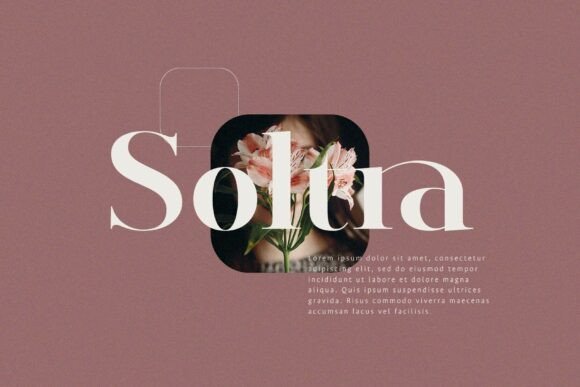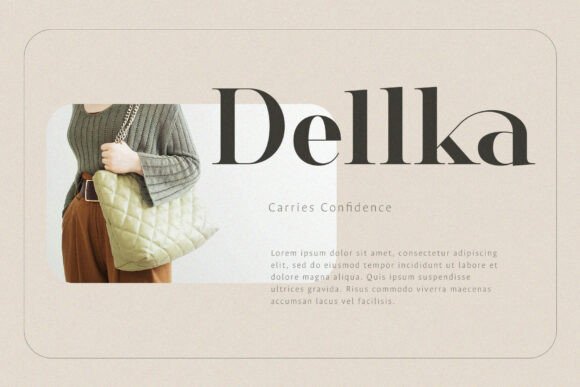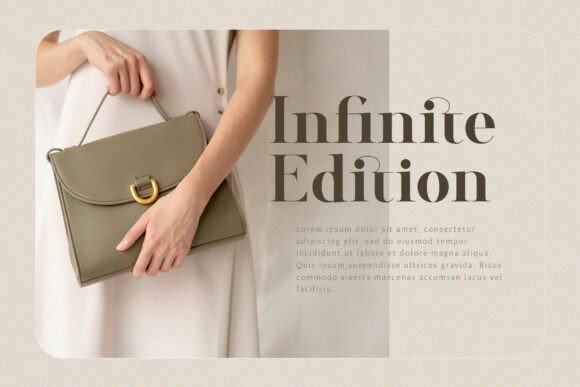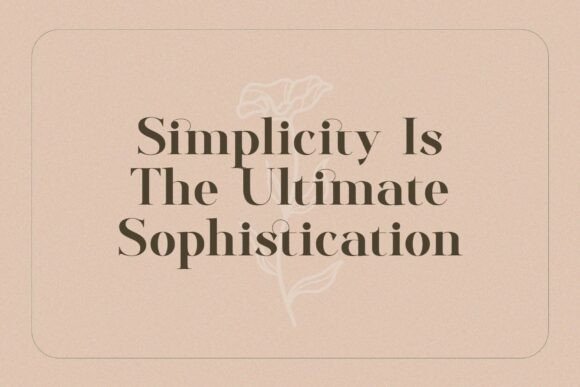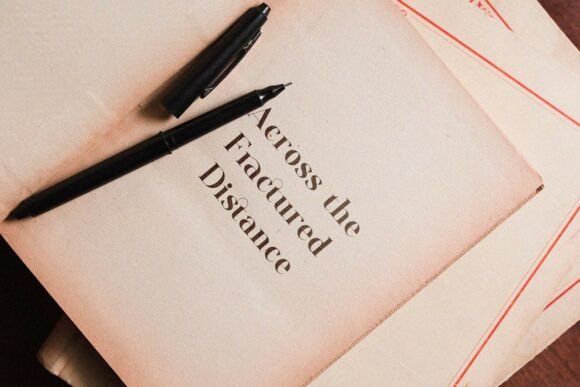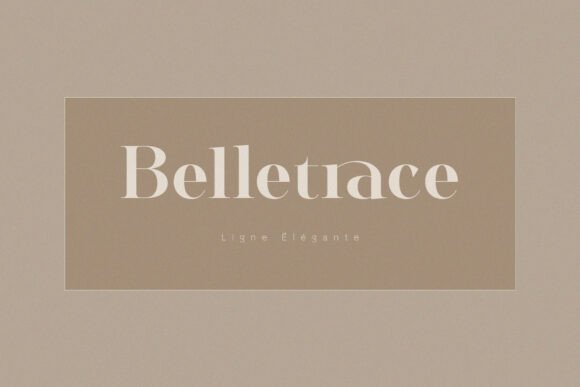
Introducing Ayilka: The Elegant Display Serif Font for Modern Designers
In the world of typography, a font can make or break a design project. For designers and crafters looking for a modern and classy typeface to elevate their work, look no further than Ayilka Font. This elegant display serif font is perfect for adding a touch of sophistication to headings, logos, branding, magazines, product packaging, and invitations.
What is Ayilka Font?
Ayilka is a thoughtfully designed font that combines clean lines with smooth curves, creating a unique and refined aesthetic. Its modern design makes it an ideal choice for designers who want to add a touch of elegance to their projects. Whether you’re working on a luxury brand campaign, a high-end product packaging design, or a stylish magazine layout, Ayilka Font is the perfect choice.
Key Features of Ayilka Font
- Modern and Classy Design: Ayilka boasts a sleek and sophisticated design that’s perfect for modern design projects.
- Clean Lines and Smooth Curves: The font’s clean lines and smooth curves create a beautiful and refined aesthetic.
- Display Serif Font: Ayilka is a display serif font, making it perfect for headings, titles, and other display text.
- Versatile: Use Ayilka for a wide range of design projects, including logos, branding, magazines, product packaging, and invitations.
Use Cases for Ayilka Font
Ayilka Font is a versatile typeface that can be used in a variety of design projects. Here are some use cases to get you started:
- Logos and Branding: Use Ayilka to create a sophisticated and elegant logo that reflects your brand’s personality.
- Magazines and Editorial Design: Add a touch of class to your magazine layouts with Ayilka’s refined design.
- Product Packaging: Elevate your product packaging design with Ayilka’s modern and sleek aesthetic.
- Invitations and Events: Use Ayilka to create stylish and elegant invitations for weddings, parties, and other events.
Why Choose Ayilka Font?
With so many fonts available, why choose Ayilka? Here are just a few reasons why Ayilka stands out:
- Unique Design: Ayilka’s modern and classy design sets it apart from other fonts.
- Elegant Aesthetic: The font’s clean lines and smooth curves create a beautiful and refined aesthetic.
- Versatile: Ayilka can be used in a wide range of design projects.
- Easy to Read: Despite its elegant design, Ayilka is easy to read, making it perfect for display text.
In conclusion, Ayilka Font is a modern and classy typeface that’s perfect for designers and crafters looking to add a touch of elegance to their design projects. With its clean lines, smooth curves, and versatile design, Ayilka is the perfect choice for a wide range of applications. Whether you’re working on a luxury brand campaign or a stylish magazine layout, Ayilka Font is sure to impress.